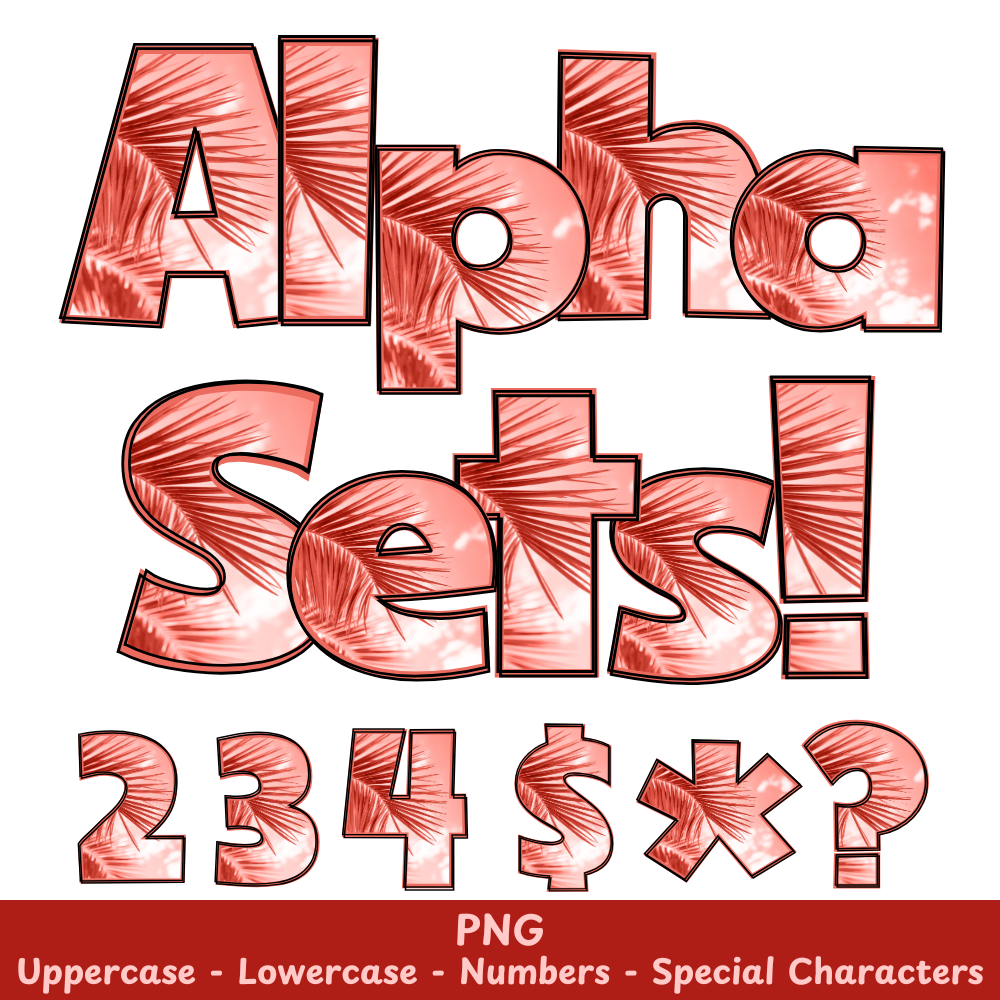
Red Tropical PNG Font
Red Tropical Alpha Set PNG Font Pack
Introducing the Red Tropical PNG Font, a versatile font that adds a unique touch to your crafts and sublimation designs. With crisp and vibrant tropical elements, this font brings your projects to life. Upgrade your designs with this must-have font today!